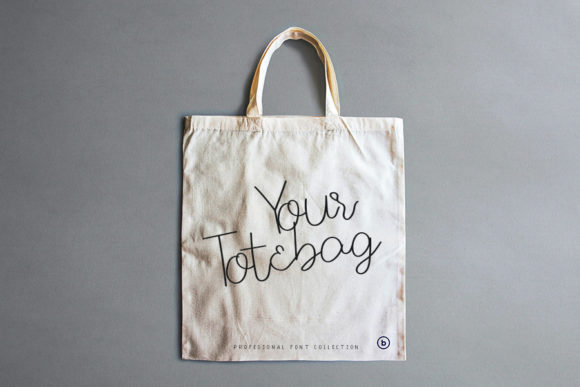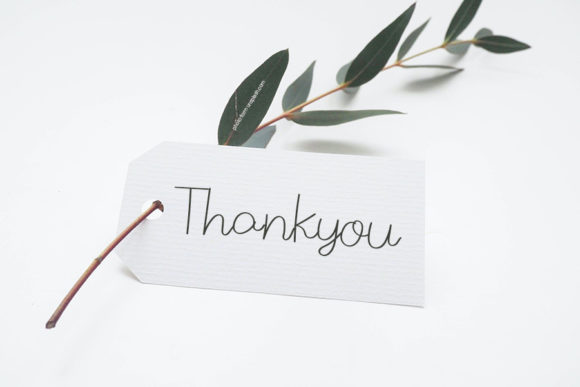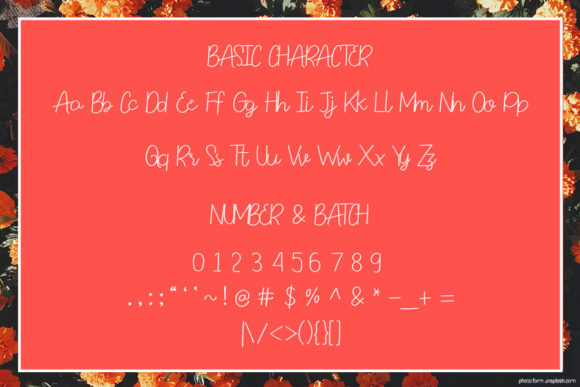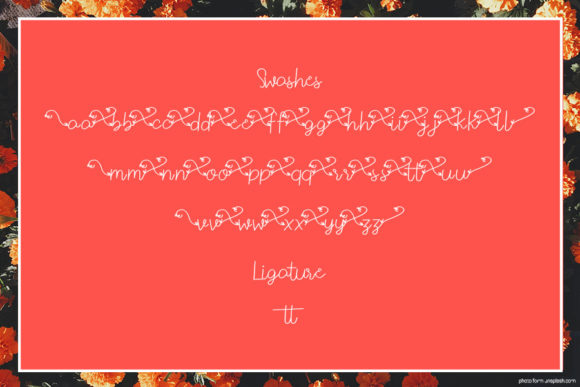
Introduction to Flower Mist Font
As a designer, have you ever found yourself stuck in front of a blank canvas, searching for the perfect font to bring your creative project to life? You’ve tried countless combinations, but nothing seems to capture the essence of your vision. Well, we’ve got exciting news for you – we’ve discovered a hidden gem that’s about to revolutionize your design process: the enchanting Flower Mist Font.
This stunning, handwritten font is more than just a pretty face – it’s a game-changer for designers looking to add a touch of elegance and sophistication to their work. With its unique, hand-crafted feel, Flower Mist Font is the perfect choice for creating eye-catching logos, branding, and quotes that will leave a lasting impression.
Key Features of Flower Mist Font
- High-quality design resource ideal for creative projects, offering a unique and delicate touch.
- Perfect for use in a variety of creative applications, including digital art, graphic design, and web design.
- Unique characteristics: intricate floral patterns and subtle texture, adding a touch of elegance to your designs.
- Supports multiple languages, making it a versatile design resource for global creative projects.
Honest Review: Flower Mist Font
As a designer, I’m always on the lookout for high-quality design resources to elevate my creative projects. Recently, I stumbled upon the Flower Mist Font, and I’m excited to share my honest review with you.
What works well: ✨ The Flower Mist Font has a beautiful, delicate design that’s perfect for adding a touch of elegance to any project. It’s a great choice for wedding invitations, baby showers, or any other occasion that requires a soft, feminine touch. The font also comes with a transparent background, making it easy to use on any background image or color.
Overall, I’m impressed with the Flower Mist Font, and I think it’s a great addition to any designer’s toolkit. While it may have some limitations, it’s a fantastic choice for personal projects or small businesses on a budget. If you’re looking for a beautiful, free font for your next creative project, the Flower Mist Font is definitely worth checking out.
Flower Mist Font is a versatile font that can be used in a variety of creative projects, including wedding invitations, birthday party decorations, and social media graphics. It’s also a great choice for designers who want a high-quality, free download font with a transparent background.
To get the most out of Flower Mist Font, try pairing it with other creative design elements, such as illustrations and graphics. You can also experiment with different font sizes and colors to create a unique and eye-catching design.